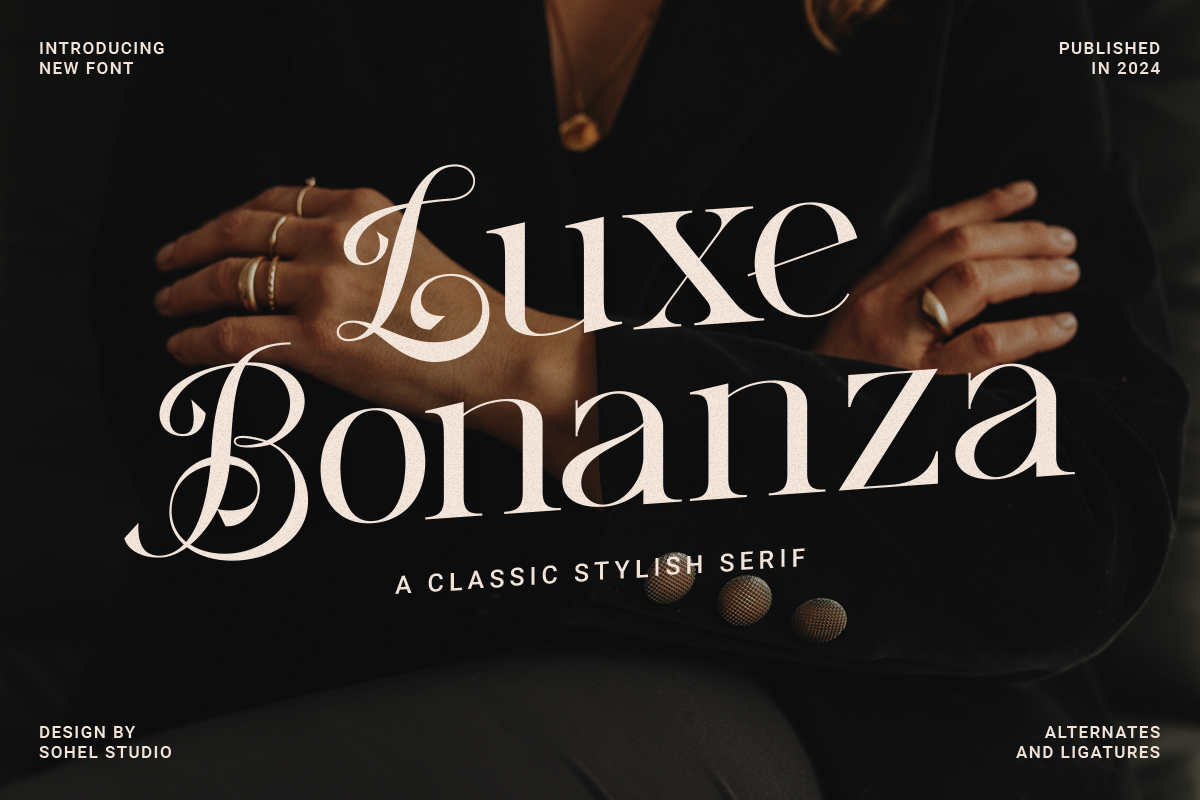
Luxe Bonanza – Resort Branding Serif Font Free Download is a high-end, sophisticated typeface designed to capture the essence of luxury, leisure, and timeless elegance. With its stylish serifs, graceful curves, and refined proportions, this font is perfect for resort logos, upscale packaging, travel magazines, and premium lifestyle branding.
Crafted to exude exclusivity and charm, Luxe Bonanza – Resort Branding Serif Font Free Download elevates any design it touches. Its elegant forms are ideal for large display uses like signage and editorial spreads, while maintaining excellent readability for high-end product labels or boutique menus.